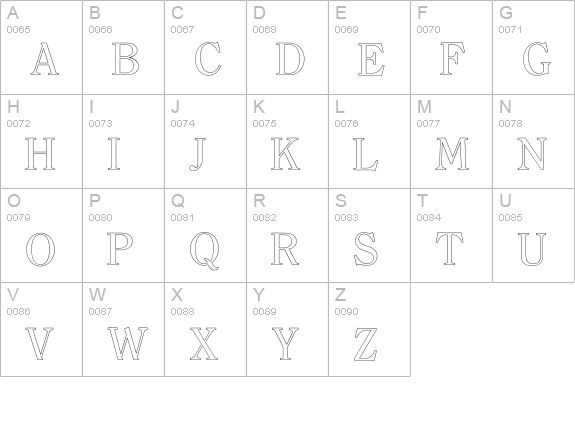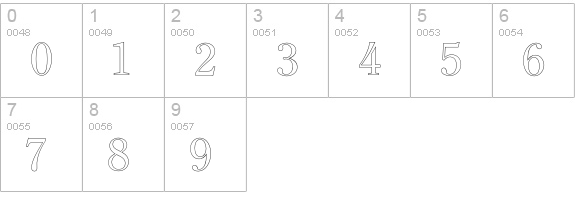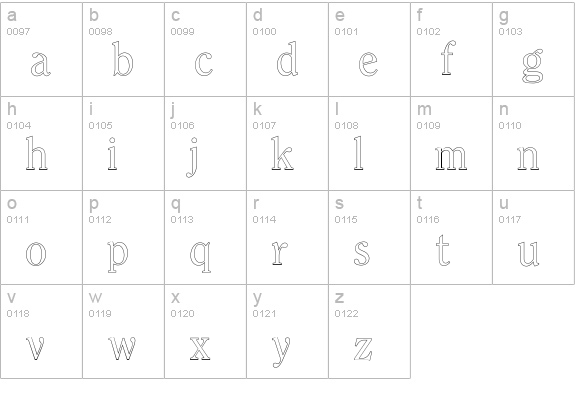
ClearfaceOutline Font Details
ClearfaceOutline is a stylish and modern font that will add a touch of sophistication to any design project. Its clean lines and elegant curves make it perfect for creating eye-catching headlines or adding a unique flair to invitations, posters, and more. The outline style of the font gives it a contemporary and edgy look that is sure to make your text stand out. Best of all, ClearfaceOutline is completely free to download at FontsMarket.com. This means you can easily access this versatile font and use it in your projects without any cost. Whether you're a professional designer looking for a new go-to font or just someone who wants to add a little something extra to their creations, ClearfaceOutline is the perfect choice. Download it today and start elevating your designs with this fantastic font.